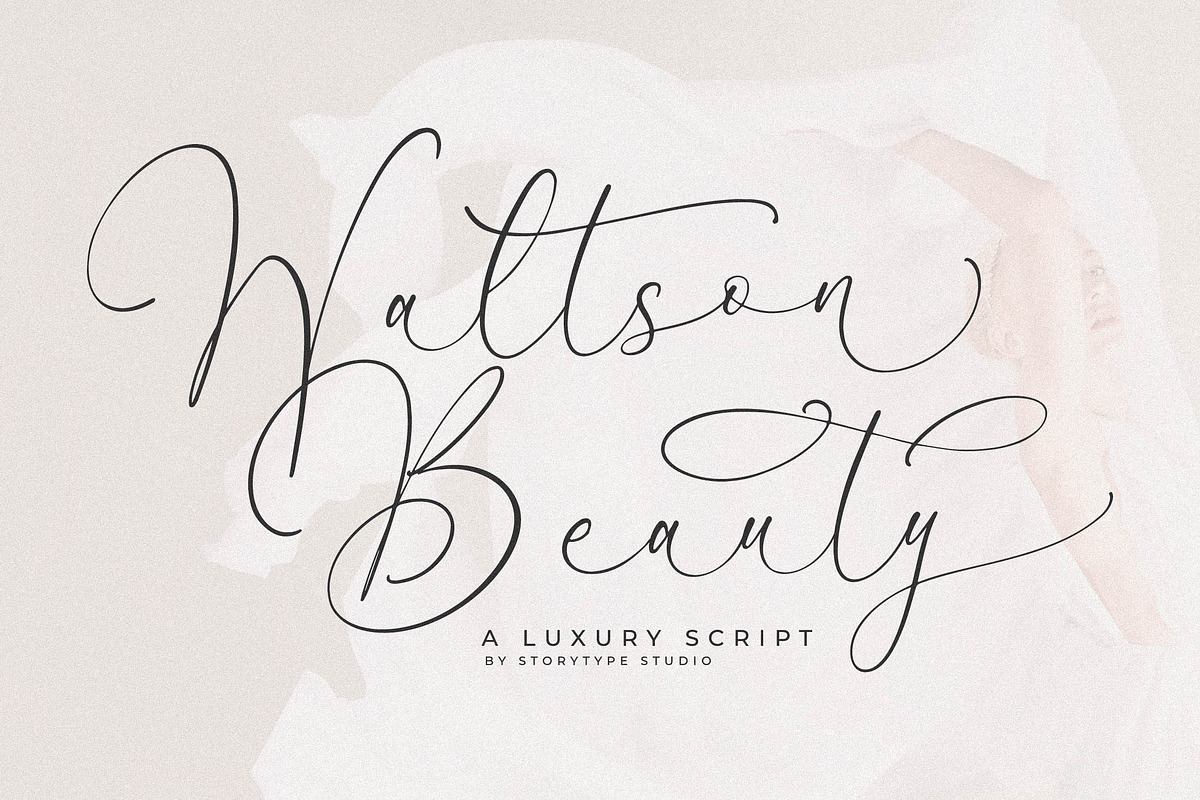
Elegant, refined, and full of grace, Waltson Beauty Luxury Script Font Free Download is a stunning handwritten script typeface that exudes luxury and sophistication. Perfect for high-end branding, wedding invitations, logos, product packaging, and upscale editorial layouts, this font adds a touch of elegance and personal style to your designs.
With its flowing curves, smooth strokes, and beautiful swashes, Waltson Beauty delivers an artistic and high-class feel, making it ideal for projects that need to convey luxury, romance, and exclusivity. Its delicate letterforms bring a handcrafted charm to any design.